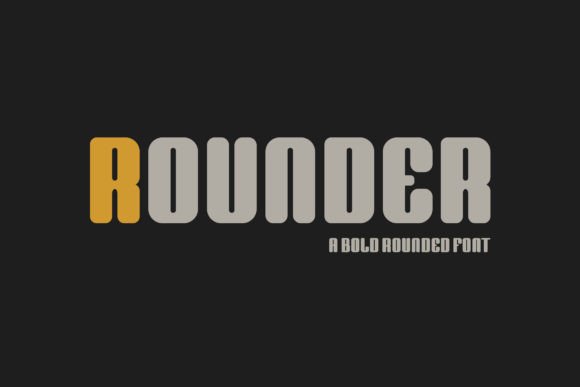
Introducing Rounder Font: The Playful Sans-Serif That Adds a Touch of Whimsy to Your Designs
In a world of serious and structured fonts, Rounder Font stands out as a breath of fresh air. This playful and charming sans-serif font is designed to inject fun and personality into your designs, making them irresistible to your audience.
Crafted with precision by the talented team at Blankids Studio, Rounder Font features a unique combination of soft, rounded edges and strong, confident strokes. This duality creates a sense of visual harmony that draws the eye and captivates the imagination.
Whether you're creating logos, branding materials, website designs, or social media graphics, Rounder Font is the perfect choice to add a touch of whimsy and charm. Its versatile nature makes it suitable for a wide range of projects, from playful and lighthearted to sophisticated and elegant.
With its cheerful and approachable demeanor, Rounder Font has the power to transform your designs into delightful experiences that resonate with your audience. Imagine your logo, with its playful curves and rounded edges, becoming an instant favorite among your customers. Picture your website text, adorned with Rounder Font's charming characters, capturing the attention of visitors and inviting them to explore further.
Rounder Font is more than just a font; it's a creative tool that empowers you to express your individuality and connect with your audience on a deeper level. So why settle for ordinary fonts when you can embrace the extraordinary with Rounder Font?